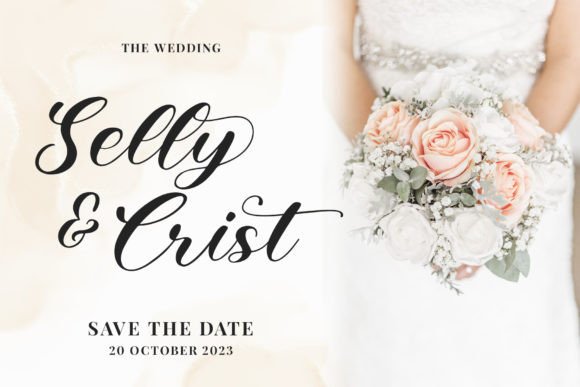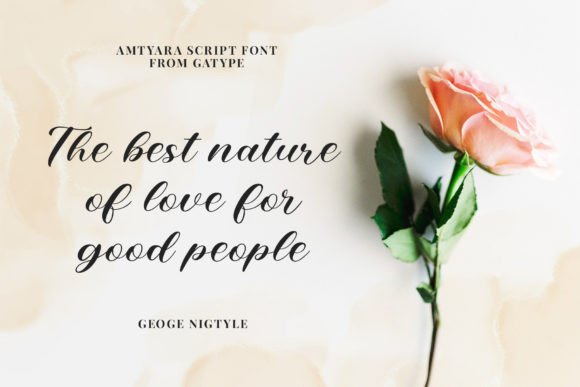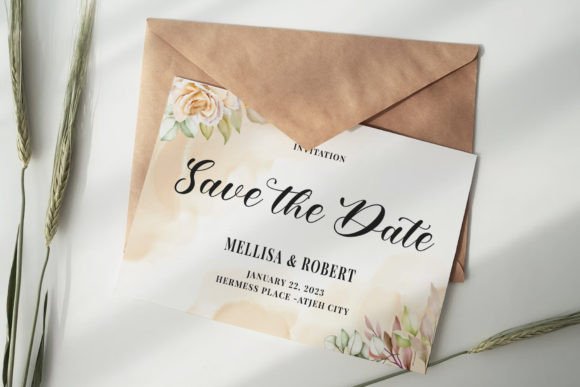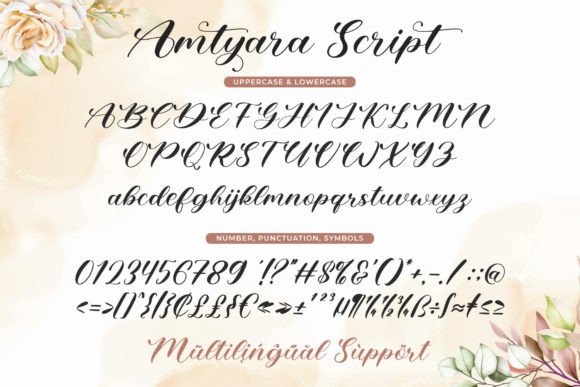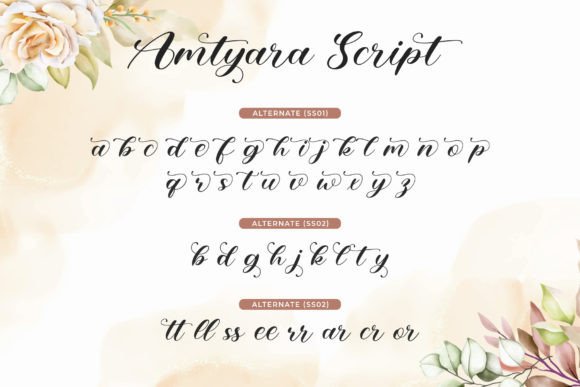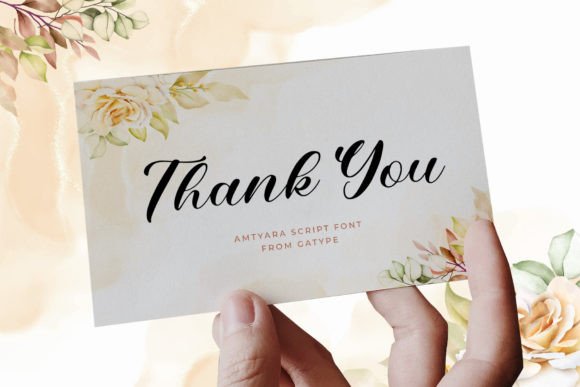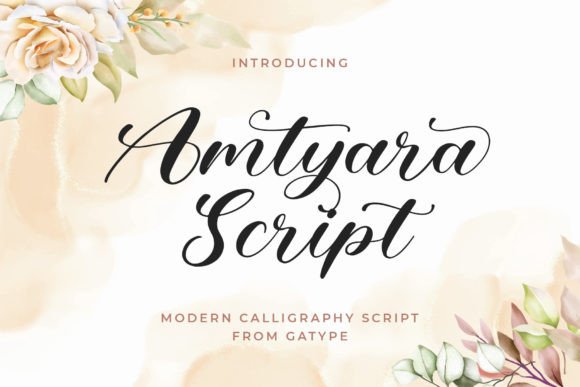
Introducing Amtyara Script Font: Elevate Your Designs with Elegance
Are you on the hunt for a font that exudes elegance and sophistication? Look no further than the Amtyara Script Font. This beautiful, flowing handwritten font is designed to add a touch of refinement to your favorite projects. With its incredibly distinct and timeless style, Amtyara Script is sure to capture the hearts of designers and crafters alike.
The Characteristics of Amtyara Script Font
Amtyara Script Font boasts an elegant touch that sets it apart from other fonts. Its flowing script style is perfect for creating spectacular designs that require a level of sophistication. The font’s unique characteristics include:
• Flowing Handwritten Style: Amtyara Script Font features a beautiful, handwritten style that flows effortlessly across the page.
• Elegant Touch: The font’s elegant touch adds a level of refinement to any design, making it perfect for projects that require sophistication.
• Distinct and Timeless Style: Amtyara Script Font has an incredibly distinct and timeless style that will make your designs stand out from the crowd.
What Makes Amtyara Script Font Special?
Amtyara Script Font is more than just a beautiful font – it’s also incredibly versatile and easy to use. Here are just a few reasons why designers and crafters love working with Amtyara Script:
• PUA Encoded: Amtyara Script Font is PUA encoded, which means you can access all the glyphs and ligatures with ease. This makes it simple to create stunning designs that showcase the font’s full range of features.
• Wide Range of Applications: Amtyara Script Font is perfect for a wide range of projects, from wedding invitations and stationery to branding and advertising.
How to Use Amtyara Script Font in Your Designs
Amtyara Script Font is incredibly versatile and can be used in a wide range of design applications. Here are just a few ideas to get you started:
• Wedding Invitations and Stationery: Amtyara Script Font is perfect for creating beautiful wedding invitations, stationery, and other paper goods.
• Branding and Advertising: The font’s elegant touch makes it perfect for branding and advertising projects, from logos and business cards to billboards and signage.
• Digital Designs: Amtyara Script Font can also be used in digital designs, such as social media graphics, website headers, and email newsletters.
Tips and Tricks for Getting the Most Out of Amtyara Script Font
To get the most out of Amtyara Script Font, here are a few tips and tricks to keep in mind:
• Experiment with Different Sizes and Colors: Amtyara Script Font looks stunning in a range of sizes and colors. Experiment with different combinations to find the perfect look for your design.
• Pair with Other Fonts: Amtyara Script Font pairs beautifully with other fonts. Try pairing it with a bold sans-serif font for a striking contrast.
• Use the Font’s Ligatures and Glyphs: Amtyara Script Font features a range of ligatures and glyphs that can add an extra level of sophistication to your designs. Don’t be afraid to experiment with these features to create something truly unique.
Font Name Amtyara Script Font
Author gatype
Amtyara Script Font is a beautiful, elegant font that’s perfect for designers and crafters looking to add a touch of sophistication to their projects. With its flowing handwritten style, elegant touch, and incredibly distinct and timeless style, Amtyara Script is sure to capture the hearts of anyone who sees it. Whether you’re working on a wedding invitation, branding project, or digital design, Amtyara Script Font is the perfect choice.